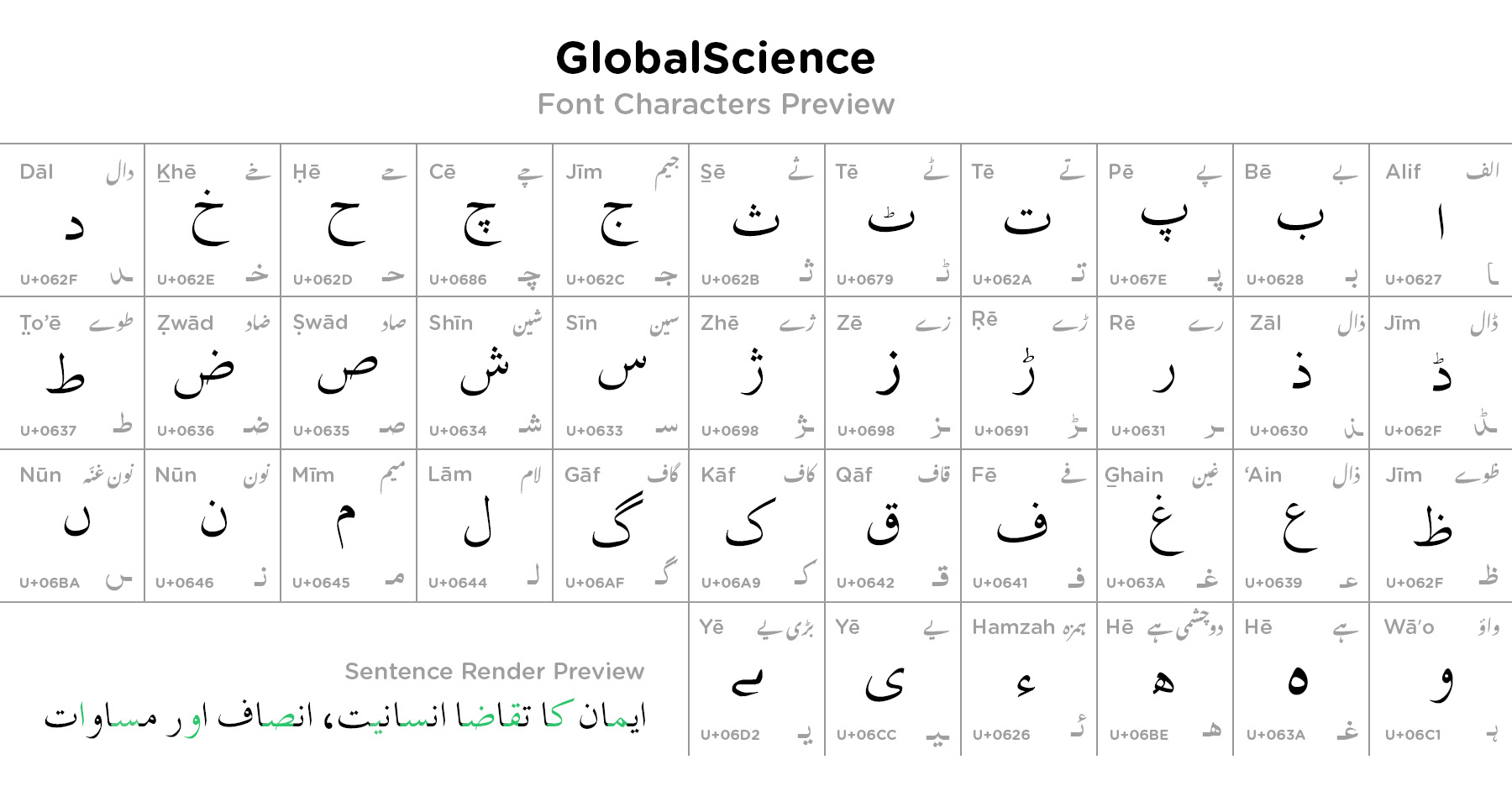
The Global Science, designed by Amanat Ali Goher, is a regular Urdu font inspired by Sans serif. It was released on January 30, 2016. With 384 characters and symbols and a glyph count of 326, this font offers extensive language compatibility, including Urdu, Arabic, Latin, Persian, and more. The font style features wide but monospaced letters, with some characters slightly higher than others, giving it a unique and irregular outlook. Despite this irregularity, Global Science maintains high legibility on screens due to its widely separated letters.
The font is suitable for longer and shorter texts, but it's preferred for shorter texts due to its widely spaced letters and irregular appearance. The font-weight is dynamic, with some letters appearing thicker than others, adding to its visual interest. Similarly, the stroke of the font is dynamic, contributing to its unique look and feel. Some letters may appear a little higher than others, adding to the font's unconventional design. While Global Science does not offer many decorations, its irregular spacing and varying thickness of letters create a distinct aesthetic. Ideal for social media posts, advertising, books, formal documentation, and more, this font offers a versatile option for various design projects.